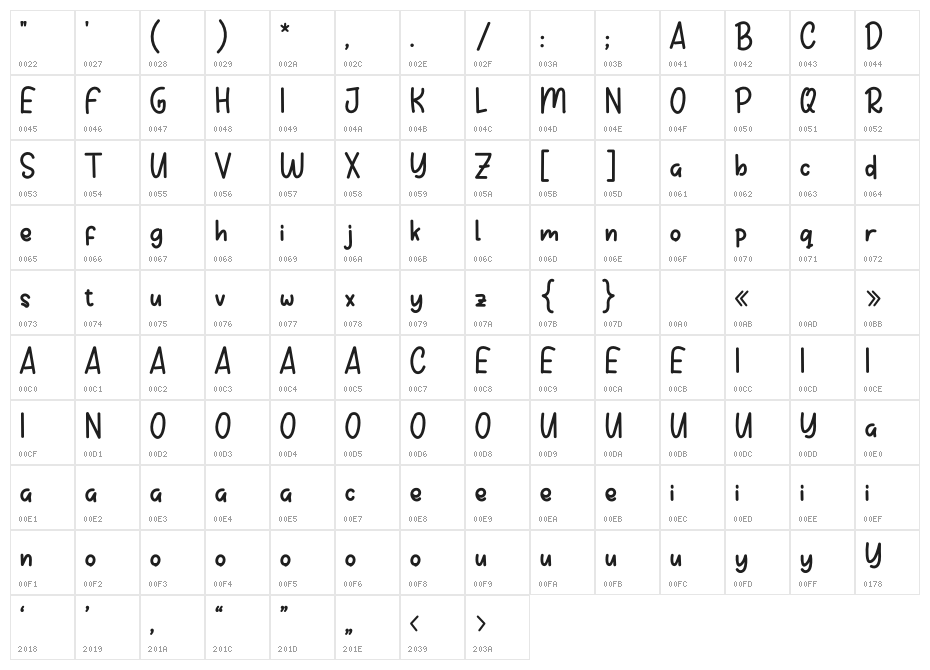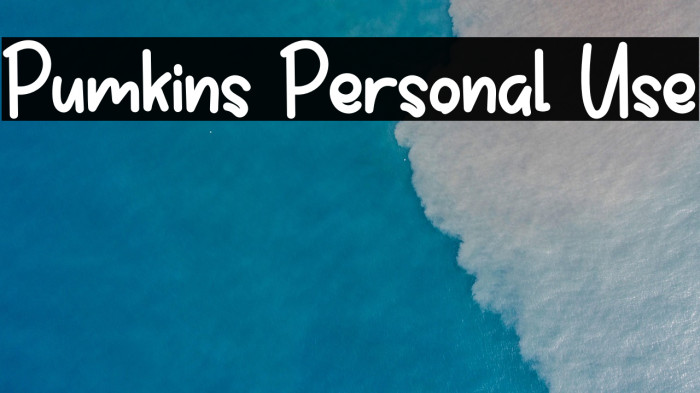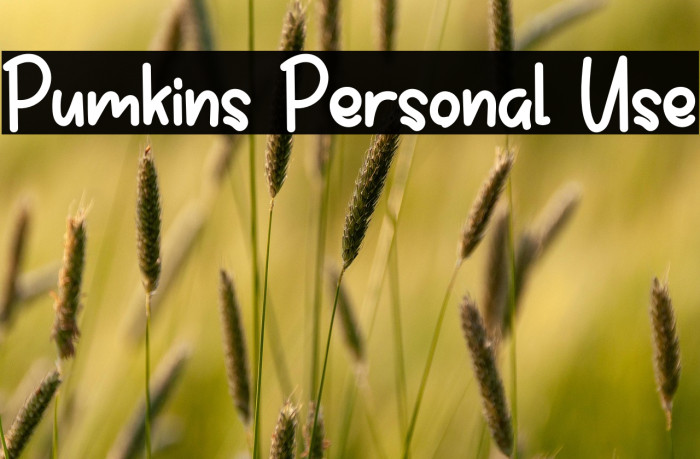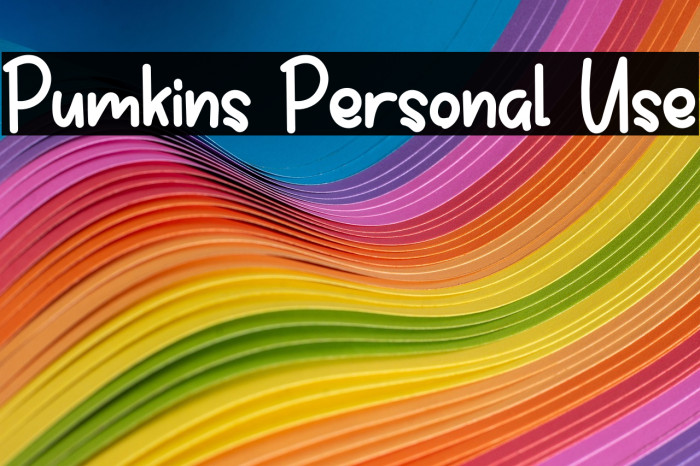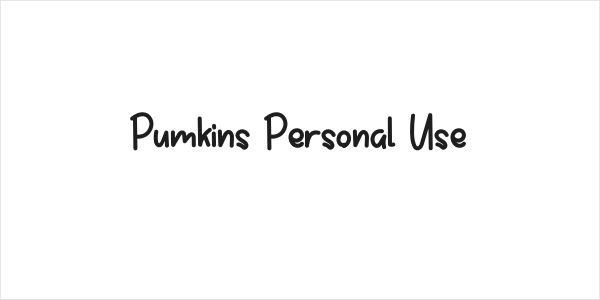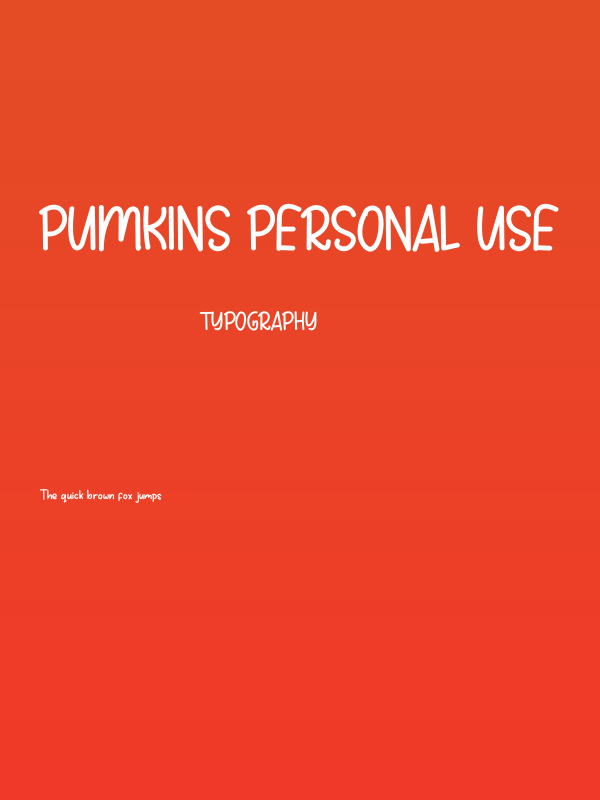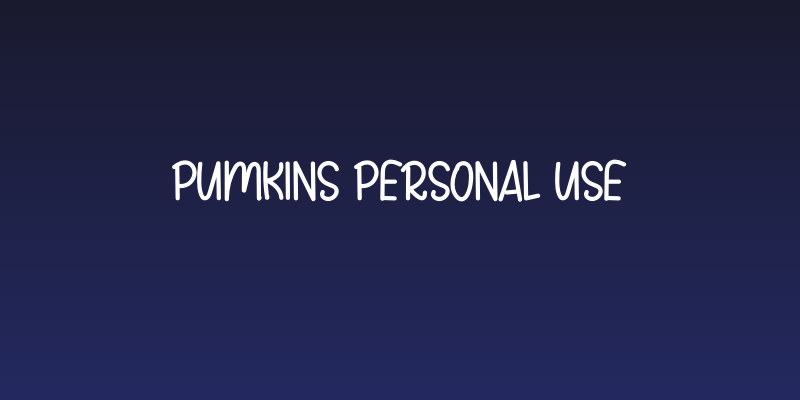
Pumkins Personal Use Font
Pumkins Personal Use Description
This playful and whimsical font features a handwritten style with rounded edges and a casual appearance. The uppercase and lowercase letters maintain a consistent flow, giving it a friendly and approachable look. The characters are slightly uneven, adding to the hand-drawn aesthetic. The font is versatile, suitable for projects that require a personal touch or a fun, informal vibe. It lacks high contrast, with strokes maintaining a uniform thickness throughout. The spacing between characters is normal, ensuring readability while preserving its playful nature.
| Use Case | Logos, Headlines, Informal Text |
| Proposed Projects | Ideal for children's books, greeting cards, playful branding, and DIY projects. |